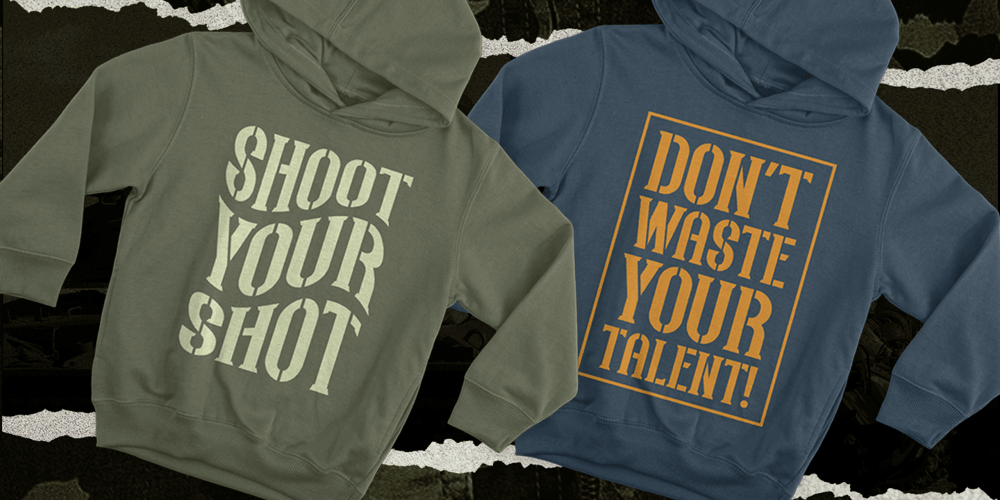
Northash
Northash font
Northash Font Family was designed by Ahmad Ramzi Fahruddin and published by Arterfak Project. Northash contains 1 styles and family package options. Introducing Northas the vintage stencil font inspired by the old-school signage and military design. This font has a bit condensed letterform that gives a strong look and dignified. Perfect for many themes such as sports, military, urban, wildlife, vintage, and more!Fonts featured : Uppercase Small caps Numbers Symbols & punctuation Accented characters Alternates Catchwords: in, out, the, with, de, of, at, and, etc. Thank you for your support and happy designing!